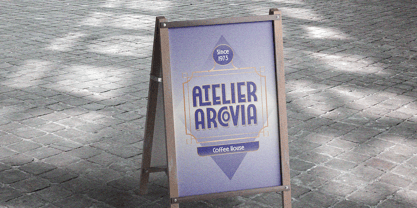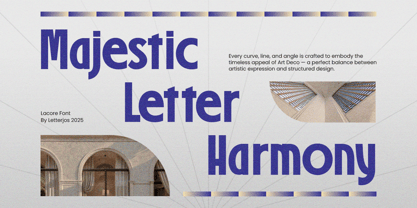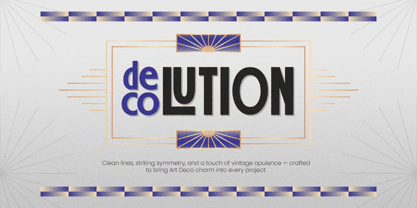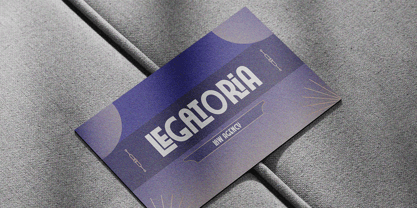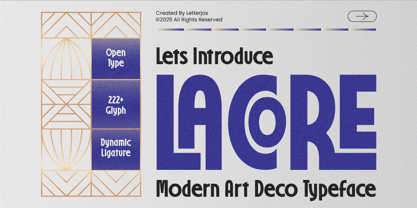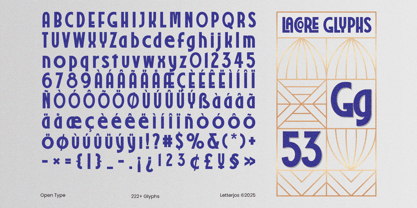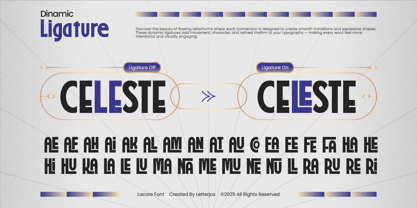
Lacore
by Jos Gandos
The Lacore Font Family was designed by Jos Gandos and published by Jos Gandos. Lacore contains 1 styles. More about this family
Introducing Lacore, a Modern Art Deco Typeface crafted with a perfect balance between vintage glamour and modern design. Inspired by the elegance of 1920s architecture and the geometry of classic Art Deco style, Lacore features bold letterforms, clean lines, and dynamic curves. This cool font ideal for creating standout headlines and stylish branding. With OpenType features, and unique ligatures, Lacore offers flexibility for both print and digital designs. Whether you’re working on luxury branding, editorial layouts, packaging, or fashion titles, Lacore adds a touch of sophistication and creativity that elevates your typography.